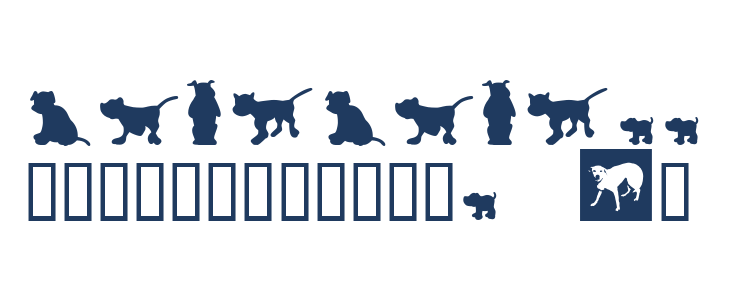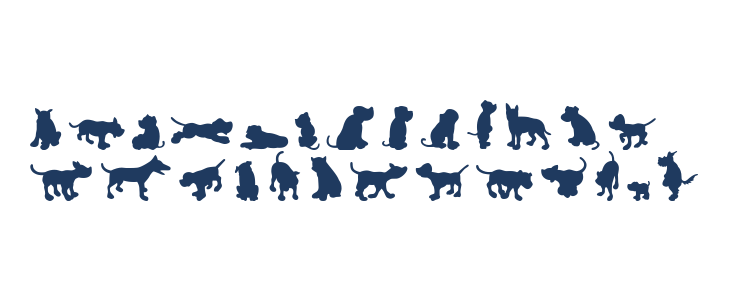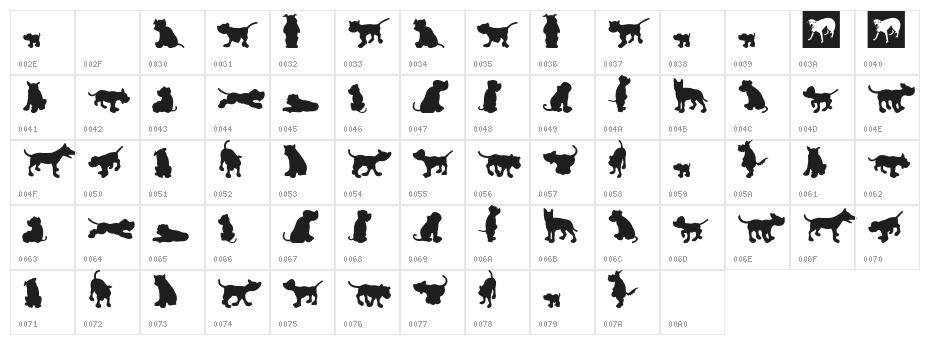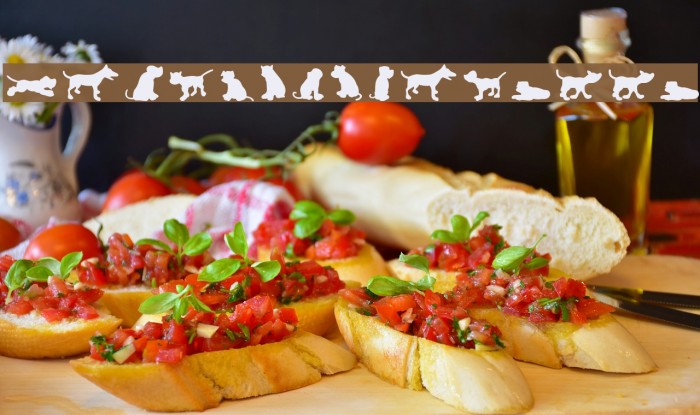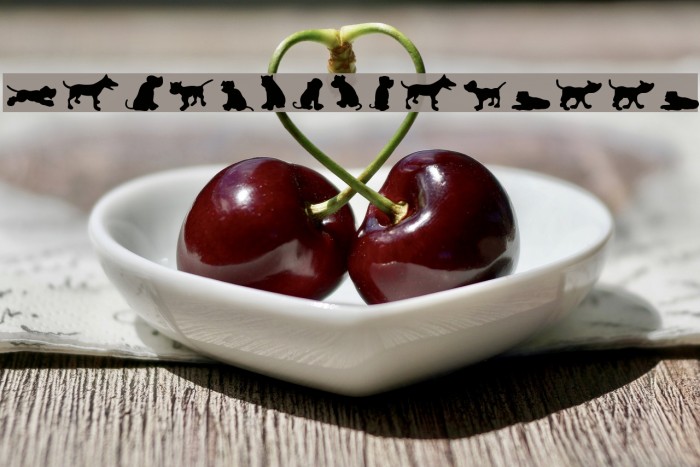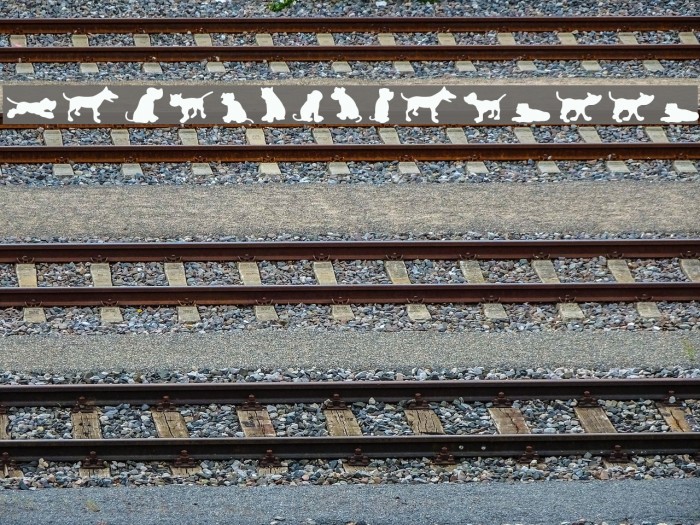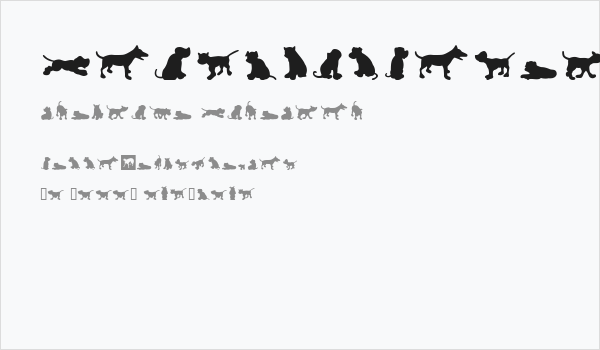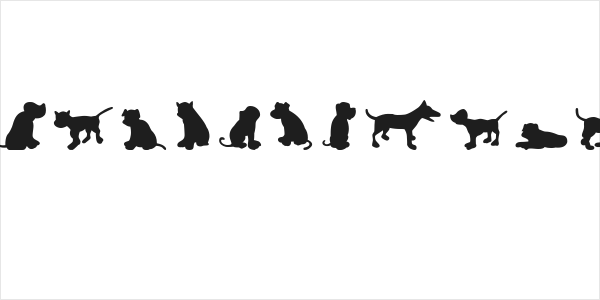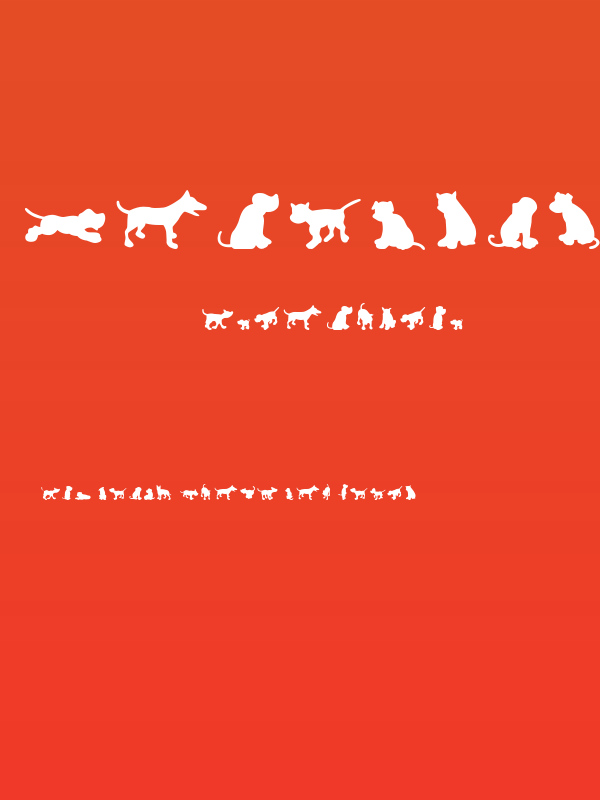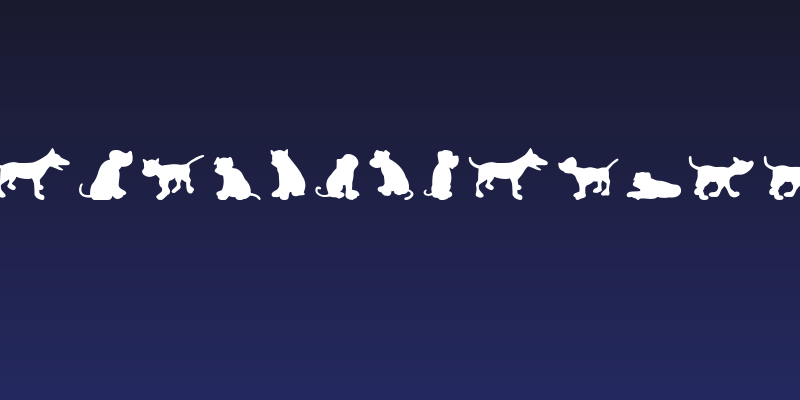
Dog30Silhouette Font
Dog30Silhouette Description
A collection of dog silhouettes in various poses and breeds, rendered in solid black with no interior detail. Each character is a distinct dog shape, ranging from sitting, standing, running, and lying down, with some including puppies. The style is playful and illustrative, focusing on recognizable canine outlines.
| Overall Style | Decorative, Playful, Illustrative |
| Use Case | Logos, Icons, Decorative elements, Themed posters |
| Proposed Projects | Pet-related branding, children's books, educational materials, greeting cards, animal shelter promotions, decorative icons. |